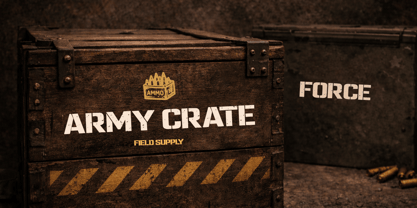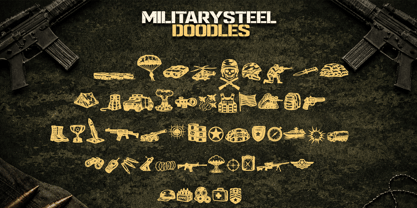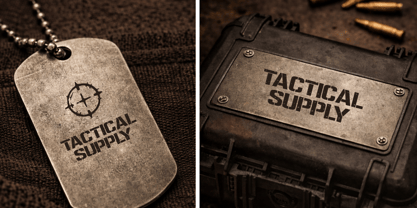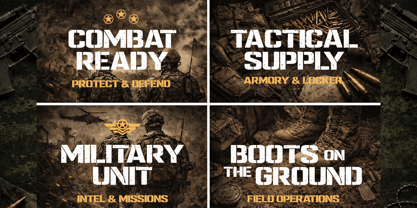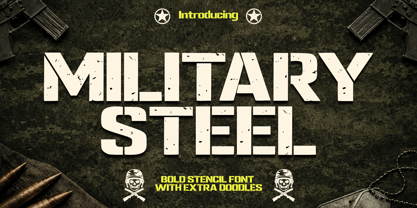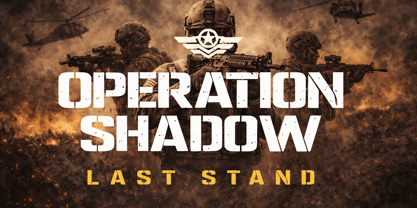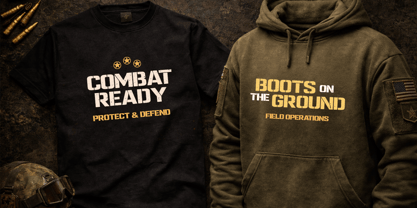
Military Steel
by Cocodesign
The Military Steel Font Family was designed by Muhammad Zaini and published by Cocodesign. Military Steel contains 2 styles and family package options. More about this family
Military Steel – Bold Stencil Font Military Steel is a strong and impactful stencil display font inspired by industrial, tactical, and military aesthetics. Designed with sharp cuts, solid structure, and rugged distress details, this typeface delivers a powerful visual presence suitable for bold and commanding designs. The stencil construction gives it an authentic military feel, while the subtle rough texture adds character and realism. Each letter is crafted to maintain clarity and readability, even at large display sizes. Perfect for a wide range of creative projects such as posters, branding, apparel, logos, packaging, game titles, and promotional materials that require a tough, masculine, and industrial style.
Designers: Muhammad Zaini
Foundry: Cocodesign